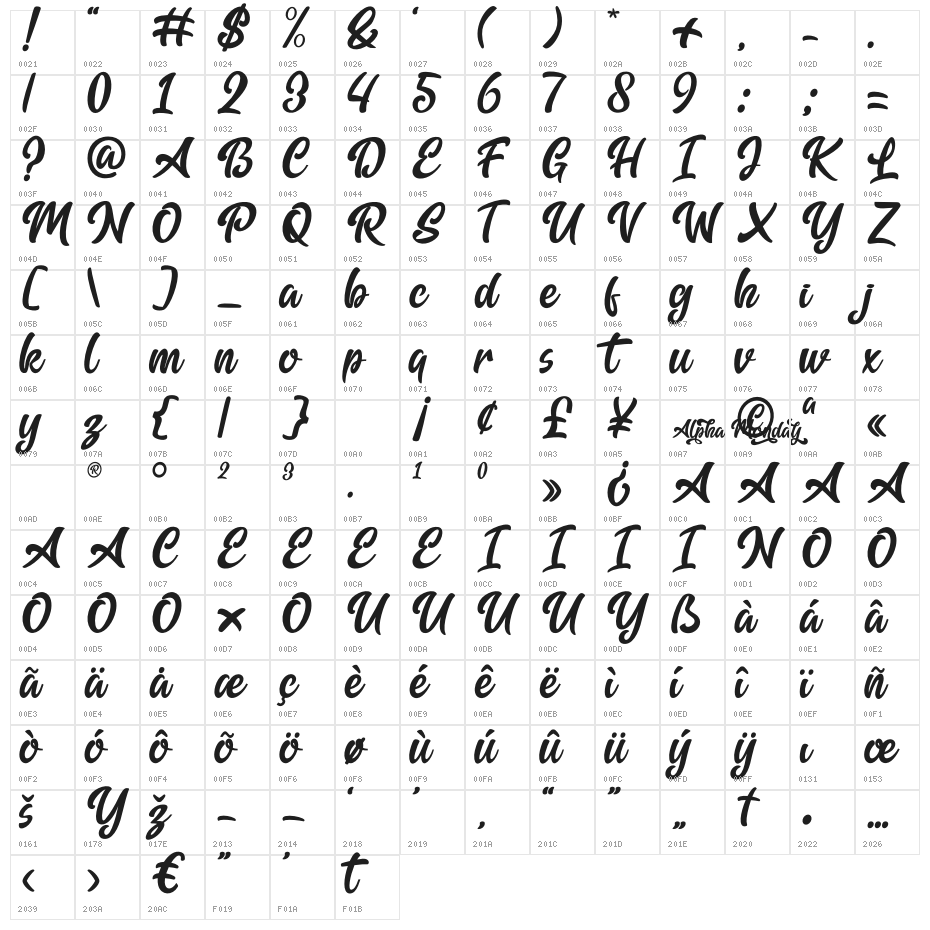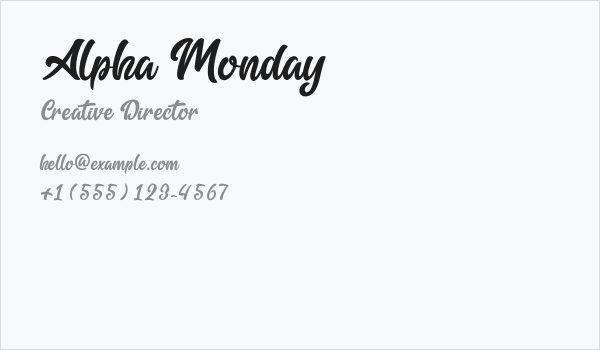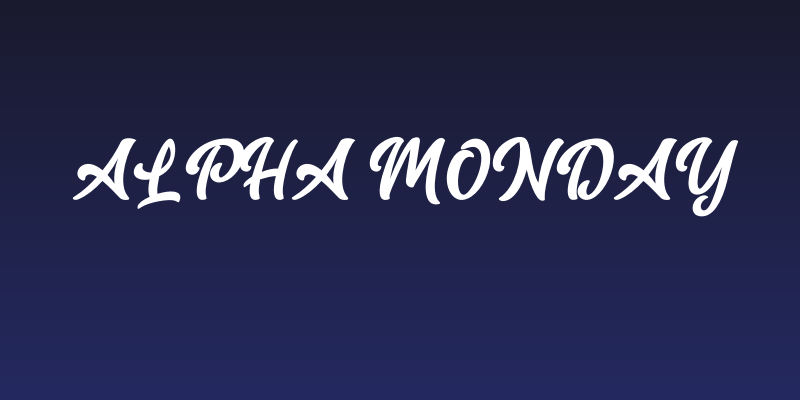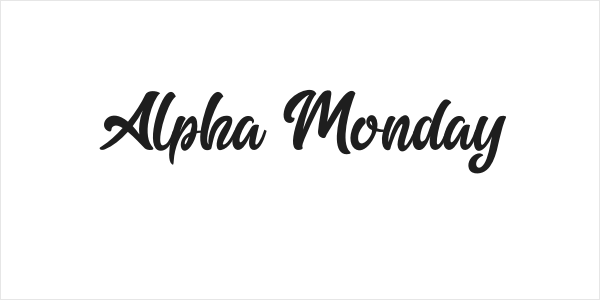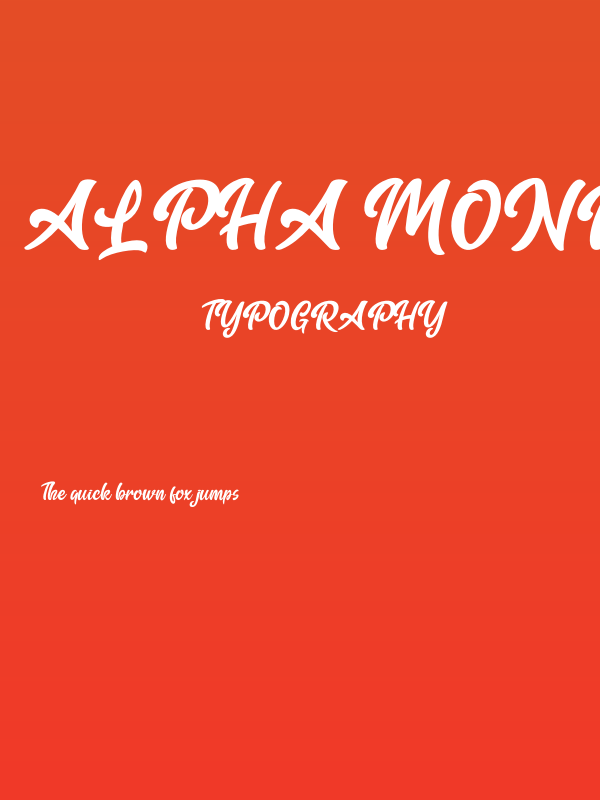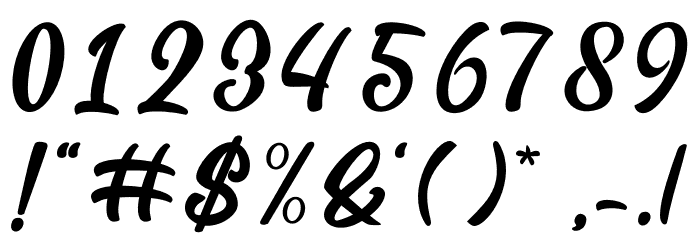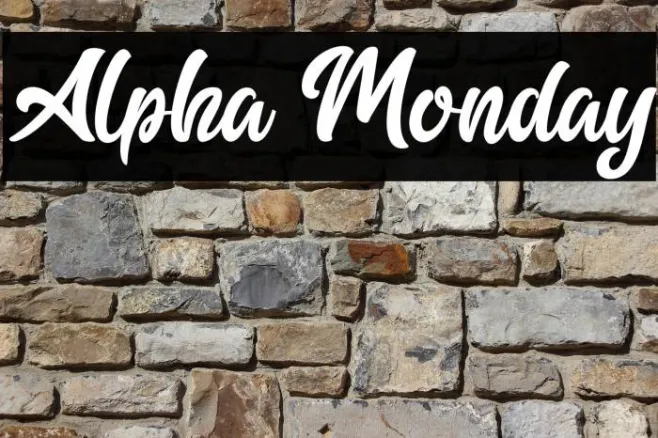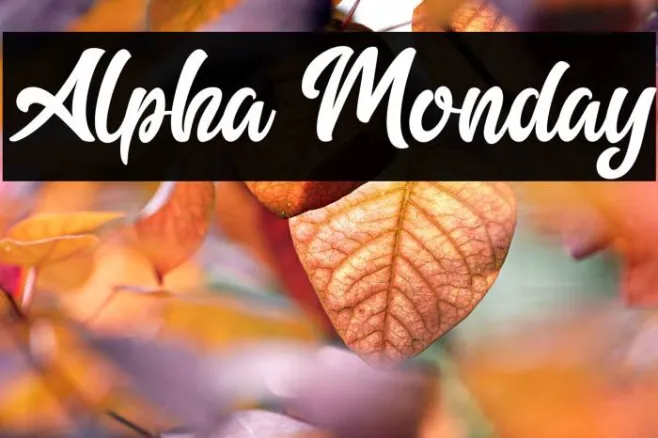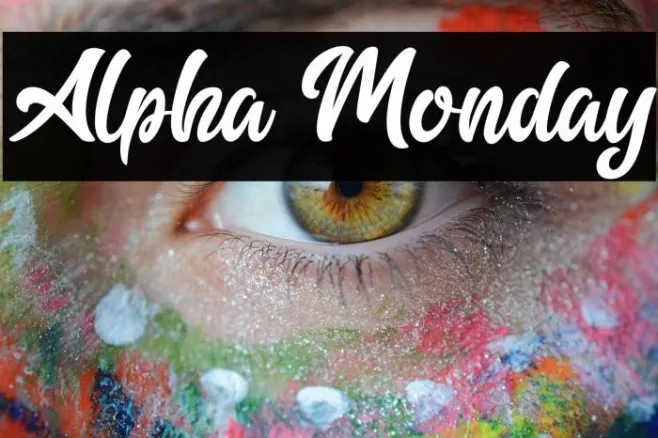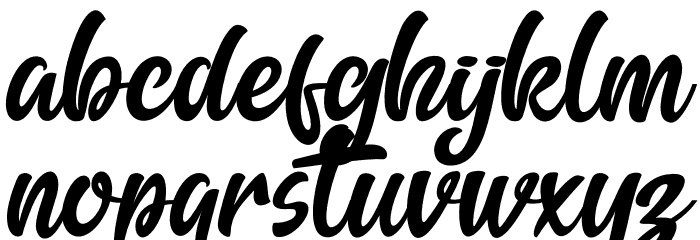
Alpha Monday Font
Alpha Monday Description
This font exhibits a bold, cursive style with a flowing, handwritten appearance. The uppercase letters are elegantly crafted with smooth curves and a slight slant, giving them a dynamic and lively feel. The lowercase letters maintain the same fluidity, with some characters featuring distinctive loops and swashes that enhance the font's decorative nature. The numerals are consistent with the script style, offering a cohesive look across all characters. Special characters, such as punctuation marks and symbols, are designed to match the overall aesthetic, ensuring uniformity. This font's boldness and script-like quality make it stand out, ideal for projects that require a touch of elegance and personality.